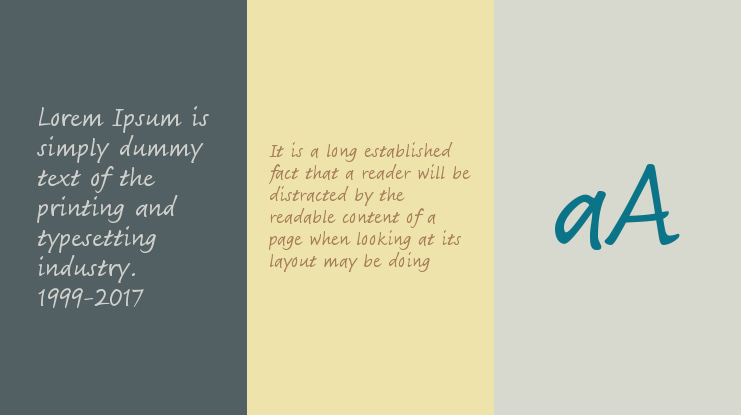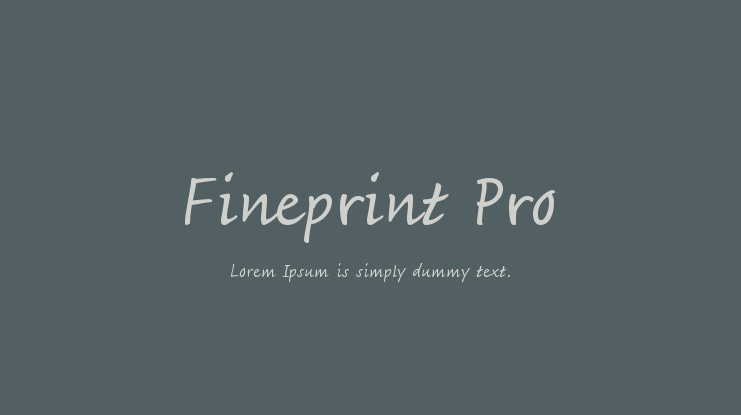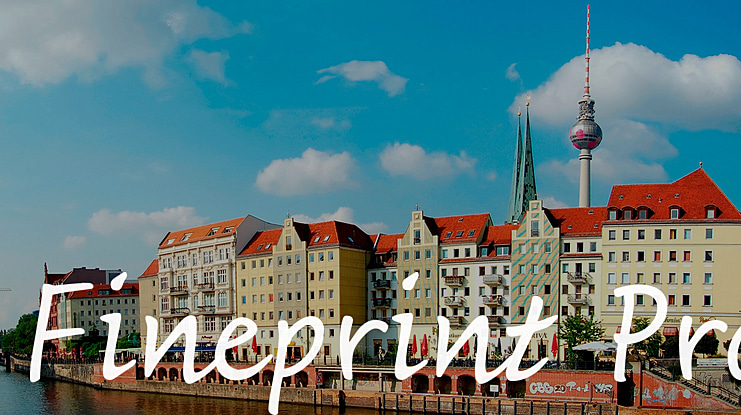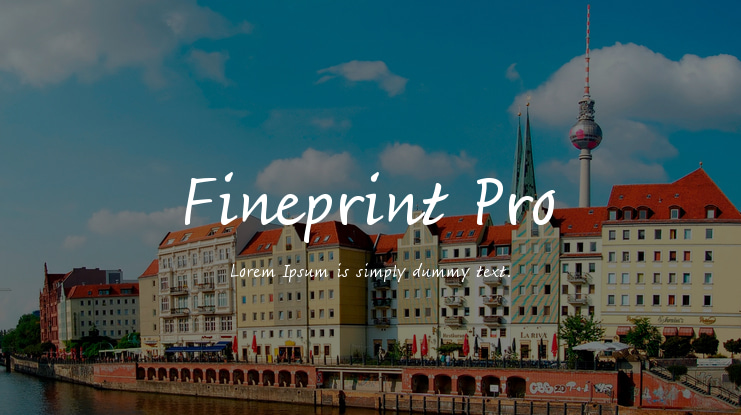
Fineprint Pro Font Family
Steve Matteson
The script typeface named Fineprint is based on its designer's own handwriting, or at least as Steve Matteson saw his handwriting on a really good day.
Unlike many digitizations of handwriting, Fineprint maintains a consistent harmony and balance across its letters in a line of text.
The Fineprint family includes a number of swash and alternate letterforms, which helps pull this quirky personal nature off.
Use Fineprint whenever you want to make something appear personal, friendly, or informal!